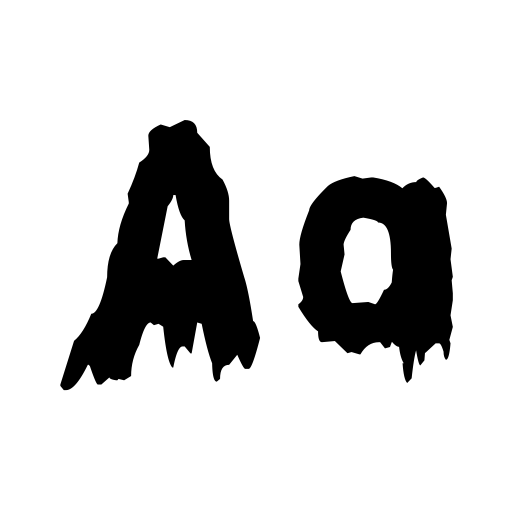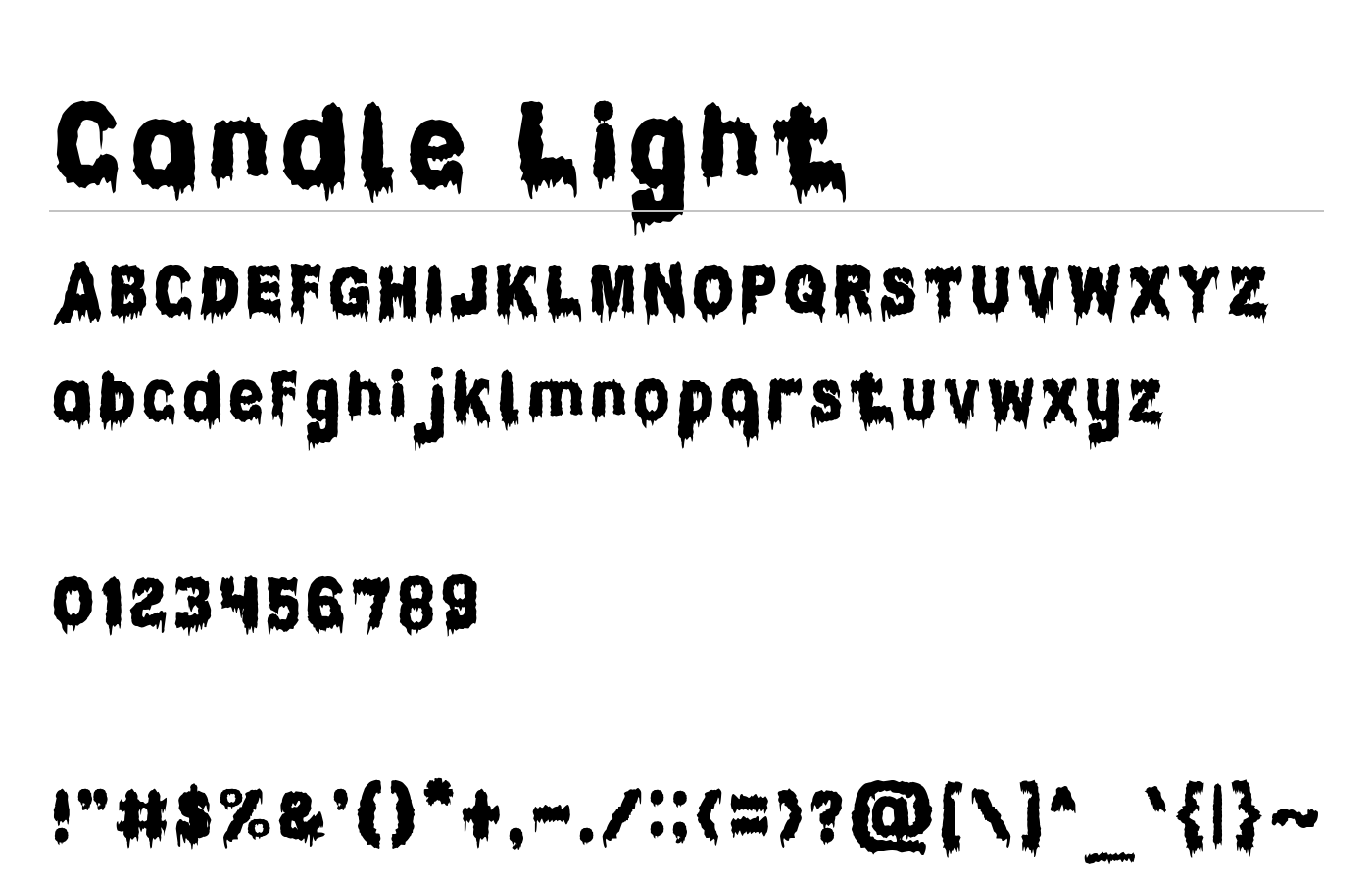
Candle Light is a bold, playful display font with a dripping, irregular texture that evokes the flickering effect of candle wax. Its sturdy, uppercase and lowercase letters have a quirky, hand-crafted feel, making it perfect for Halloween themes, spooky branding, or creative projects that need a dramatic and eye-catching touch. This font works best in headlines, posters, and packaging where a strong, fun atmosphere is desired.
Candle Light Font
About Candle Light Font